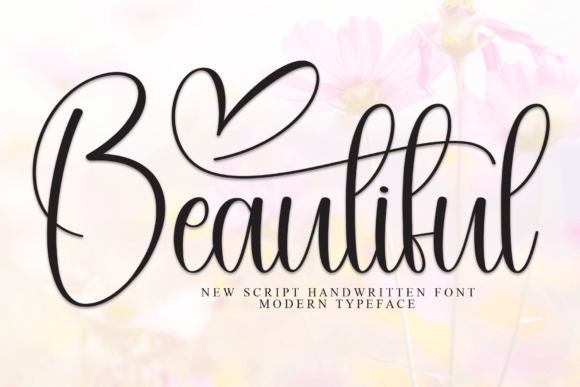
Have you ever found yourself scrolling through Instagram, admiring the beautiful typography and calligraphy scripts that catch your eye? Maybe you’ve even tried to recreate those stunning designs for your own projects, but struggled to find the perfect font. That’s where the Beautiful Font comes in – a magical script font that’s been carefully crafted with elegance in mind.
This gorgeous font is perfect for designers looking to add a touch of sophistication to their work. Whether you’re creating graphics for social media, designing a wedding invitation, or simply looking to add a personal touch to your DIY projects, the Beautiful Font is sure to impress. Its versatility and beauty make it a valuable asset for any designer, and its unique style is sure to set your work apart from the rest.
Beautiful Font Key Features
- Font Family: Beautiful Font offers a unique blend of elegant and modern script fonts, with 12 styles to choose from, including Regular, Italic, Bold, and Bold Italic.
- Unique Characteristics: Beautiful Font features a unique, hand-crafted design with subtle flair and texture, adding a touch of sophistication to any design project.
Beautiful Font Review
Overall, I’m impressed with “Beautiful Font”. It’s a great choice for any project that needs a touch of elegance and sophistication.
- ✨ Excellent legibility: The font is easy to read, even at smaller sizes.
- ✨ Versatile: It works well for both body text and headings.
- ✨ Beautiful curves: The font’s curves are smooth and refined, making it perfect for designs that require a touch of sophistication.
- ⚠️ Limited font sizes: While it works well at standard font sizes, it can become a bit blurry at larger or smaller sizes.
- ⚠️ Not ideal for bold text: The font’s bold version can become a bit too thick and overpowering.
While “Beautiful Font” has some limitations, it’s still a great choice for many projects. Its excellent legibility, versatility, and beautiful curves make it a popular choice among designers. However, be aware of its limitations, especially when it comes to font sizes and bold text.
Tips for Getting the Most Out of “Beautiful Font”
Pair “Beautiful Font” with other fonts for a unique and eye-catching look.
Use it to create headings, titles, and emphasis in your designs.